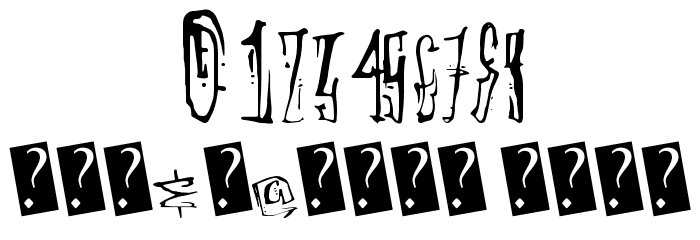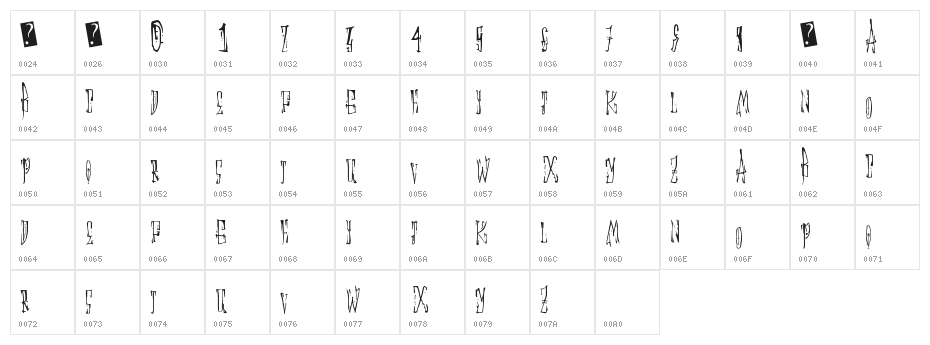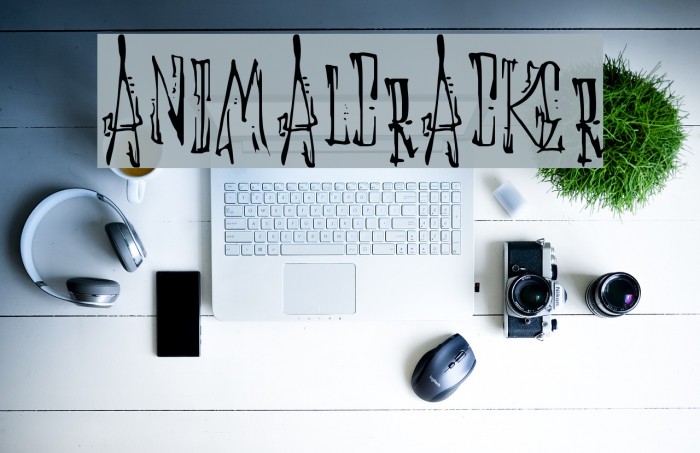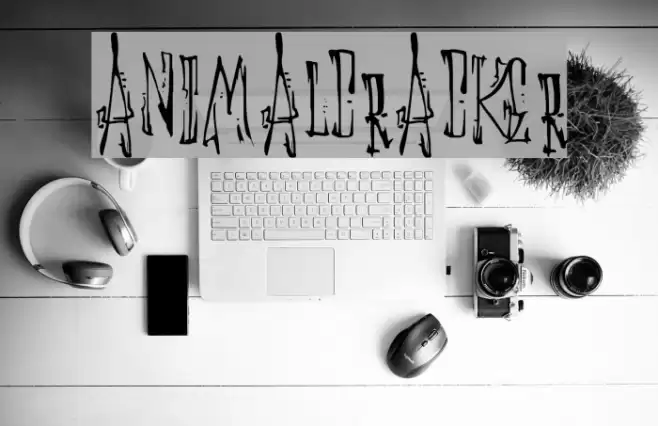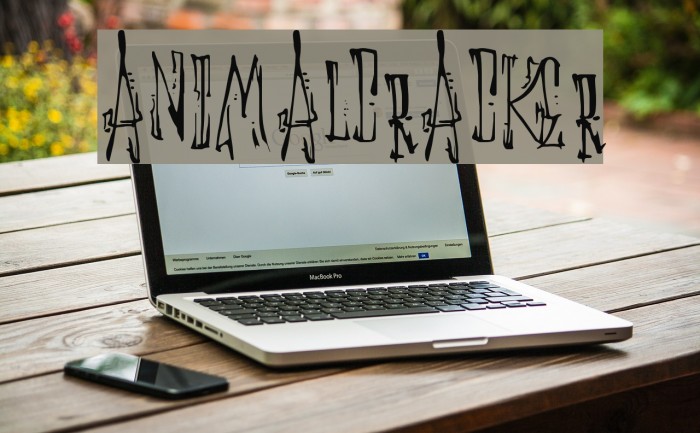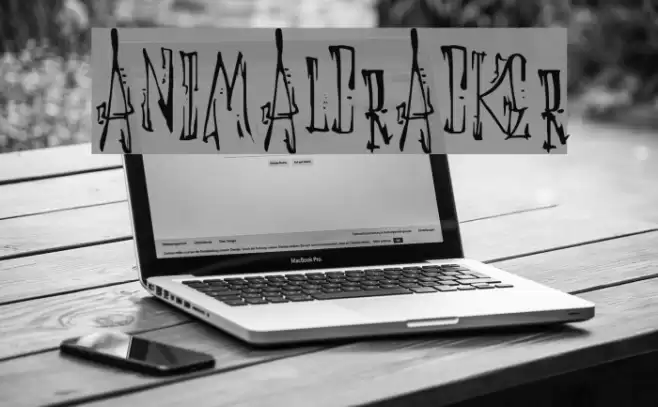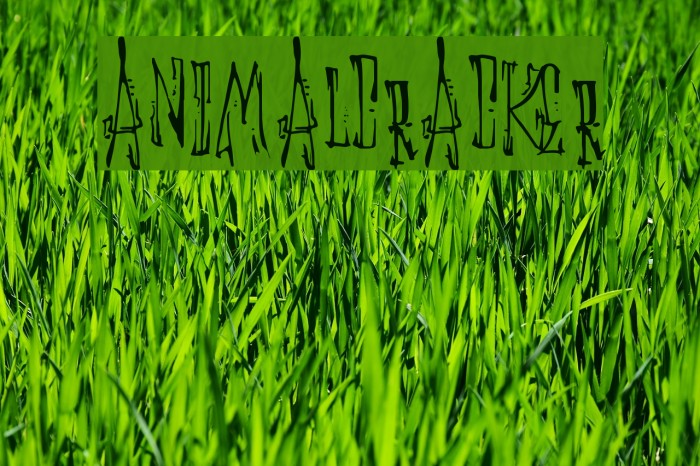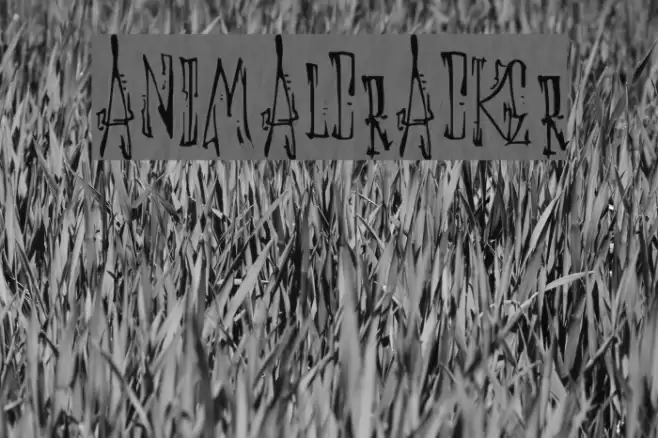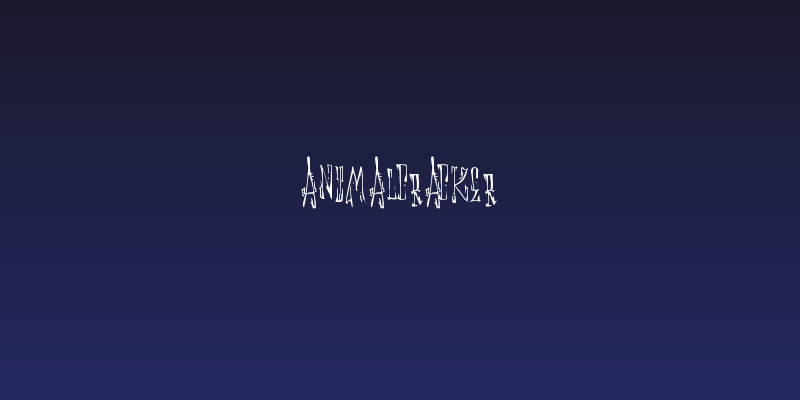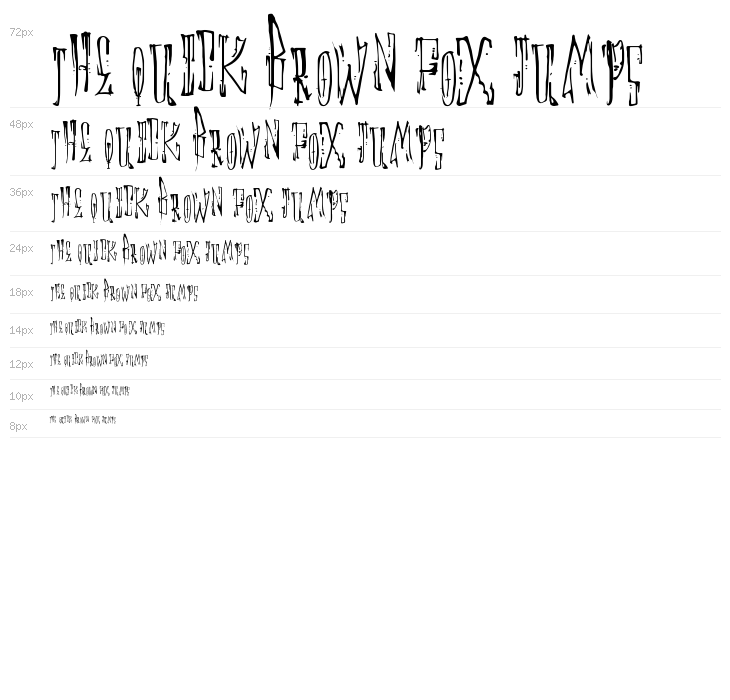
AnimalCracker Font
AnimalCracker Description
This font features a highly decorative and distressed style, characterized by irregular, jagged edges and a hand-drawn appearance. The letters are bold and dramatic, with a unique flair that gives each character a sense of movement and energy. The uppercase and lowercase letters maintain a consistent style, with exaggerated serifs and uneven strokes that create a chaotic yet artistic look. The numbers and special characters follow the same design principles, adding to the overall cohesiveness of the font. This font is ideal for projects that require a bold, eye-catching aesthetic with a touch of grunge or rebelliousness.
| Proposed Projects | Ideal for posters, album covers, event flyers, or any design needing a bold, artistic touch. |